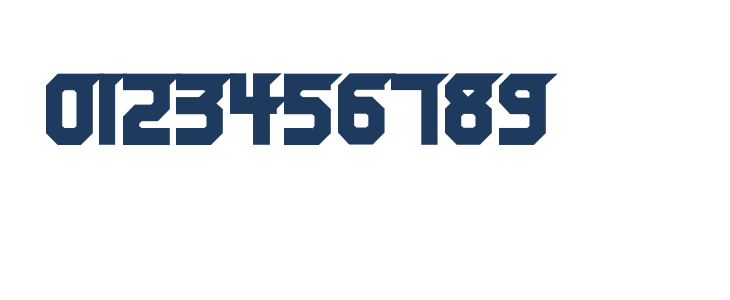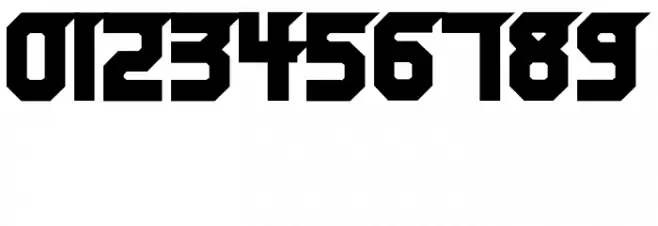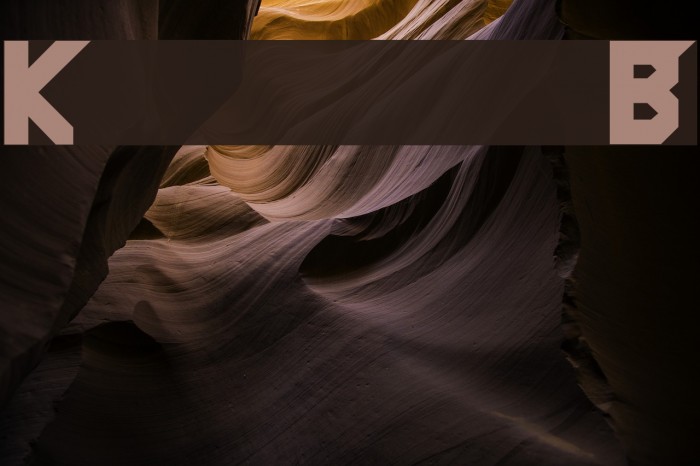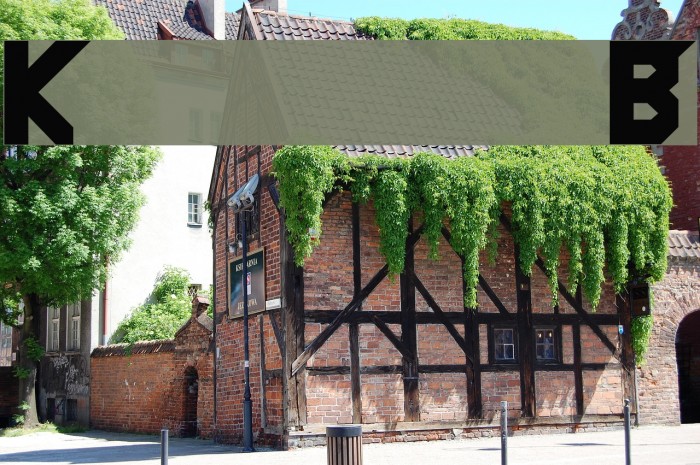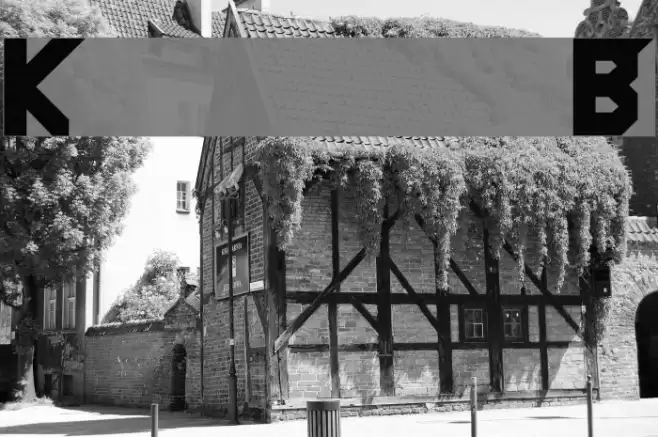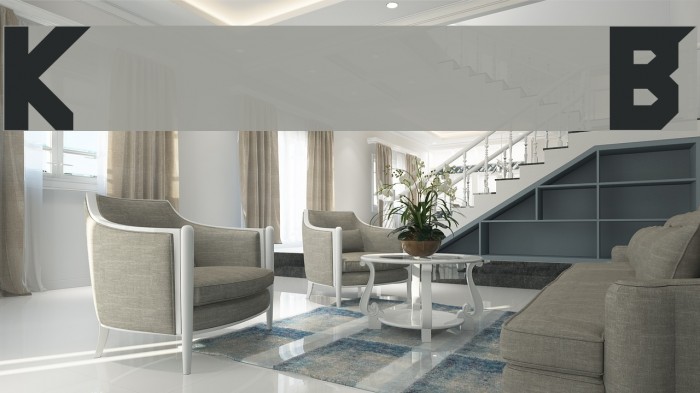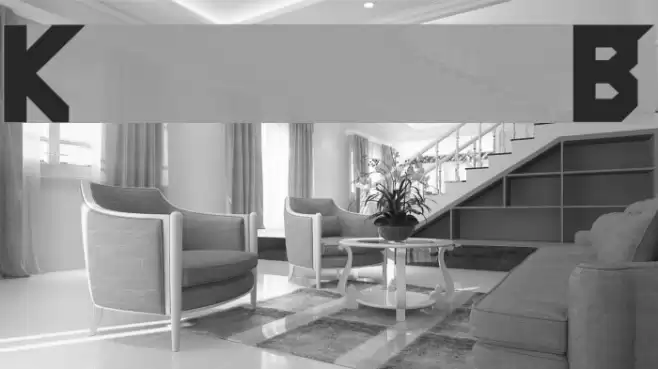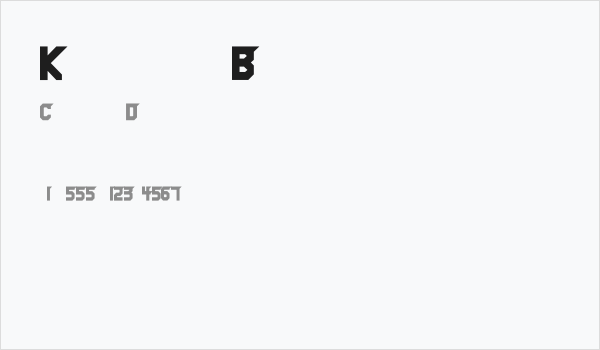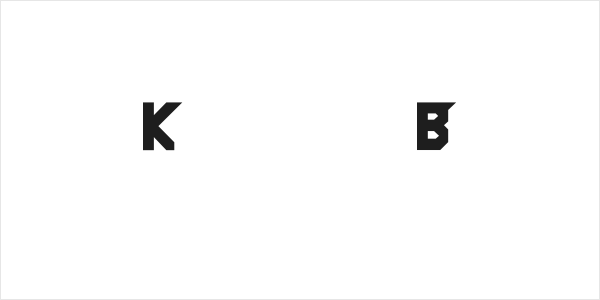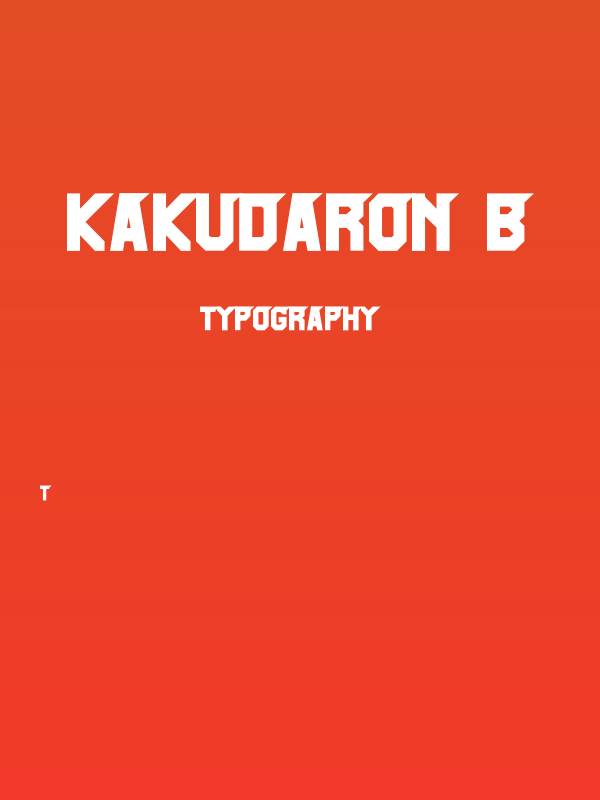
Kakudaron-B Font
Kakudaron-B Description
This font presents a bold and geometric style, characterized by its sharp angles and block-like structure. The uppercase letters are uniform in height, with a consistent width that gives a sense of stability and strength. The numbers follow the same design principles, maintaining the bold and angular appearance. The font lacks lowercase letters, focusing instead on a strong, uppercase presence. Its design is reminiscent of industrial or futuristic themes, making it suitable for projects that require a modern and impactful look. The characters are tightly spaced, enhancing the compact and robust feel of the font. The high contrast between the thick strokes and the negative space within the letters adds to its striking visual impact.
| Proposed Projects | Ideal for logos, headlines, posters, and branding projects that require a modern and strong visual impact. |